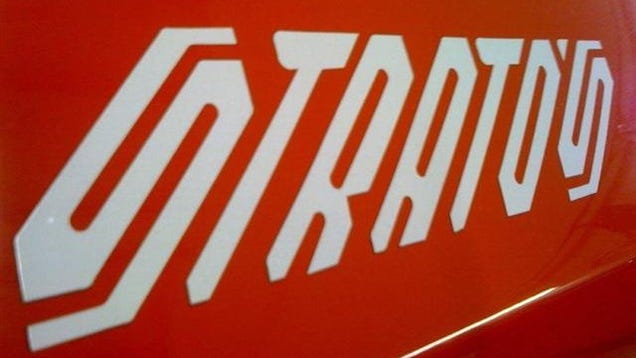
If you have a font geek in your life, you already know Futura was designed in 1927 by Paul Renner, and that the Greek restaurant down the street overuses Lithos. Car logotypes provide a deep well of typeface history too. What's the greatest automotive typeface of all time?
It's not the most readable, but I can't think of another typeface that was a better match for the car on which it was stamped. That is, the Lancia Stratos font. No other typeface captures both the time and place, and car, like the Stratos font did on the original Bertone-designed Stratos Zero of 1970. (You can even get a replica Stratos font for your letterhead.)